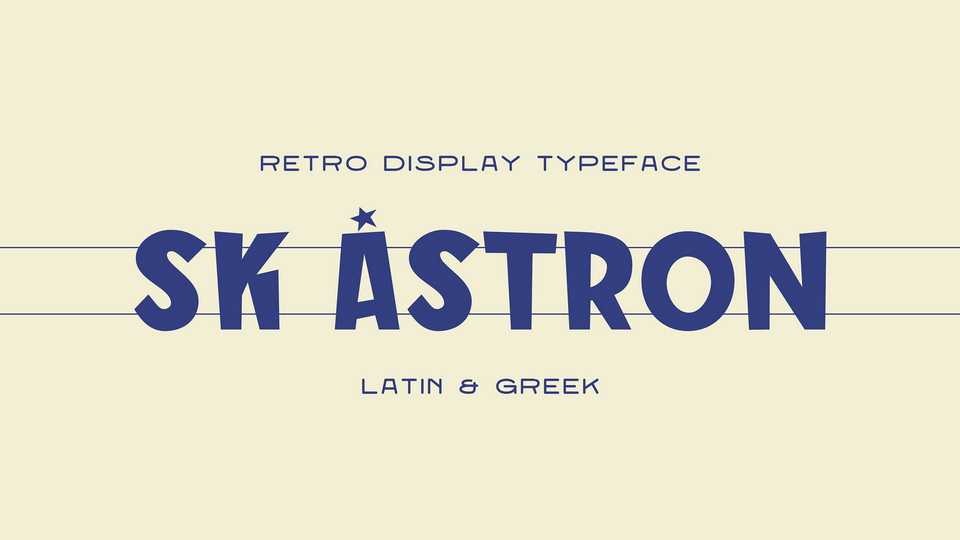
Download SK Astron font, a capitalized display font, with thick elements, inspired by the advertising posters of the Greek cinema of the ’60s and’ 70s.